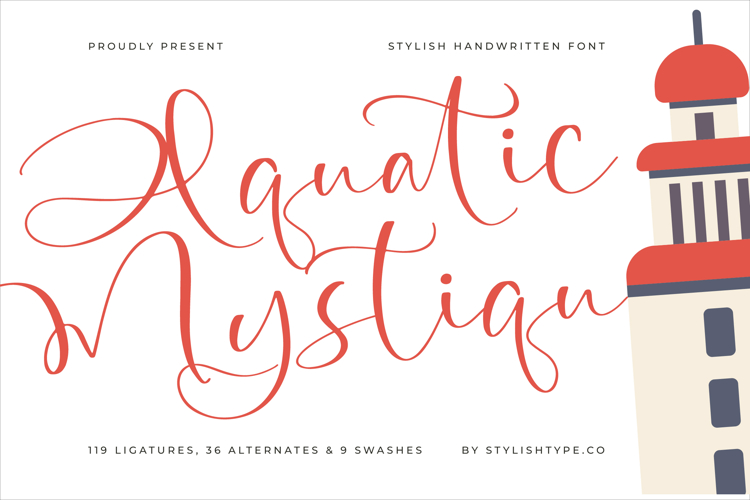
Aquatic Mystiqu - Stylish Handwritten Font
Unlock a world of sophisticated design with Aquatic Mystiqu - Stylish Handwritten Font, a truly captivating script embodying grace and authenticity. This exquisite typeface marries the natural elegance of genuine handwriting with a refined, contemporary aesthetic. Its fluid strokes and delicate connections create a visually rich texture, making every word an expression of unique style and bespoke craftsmanship.